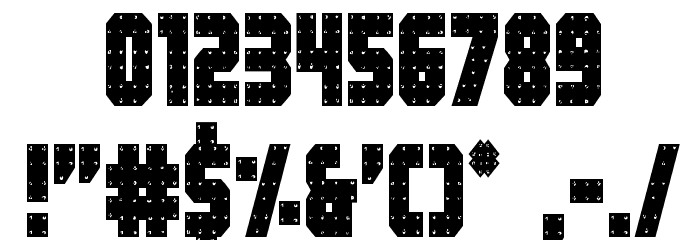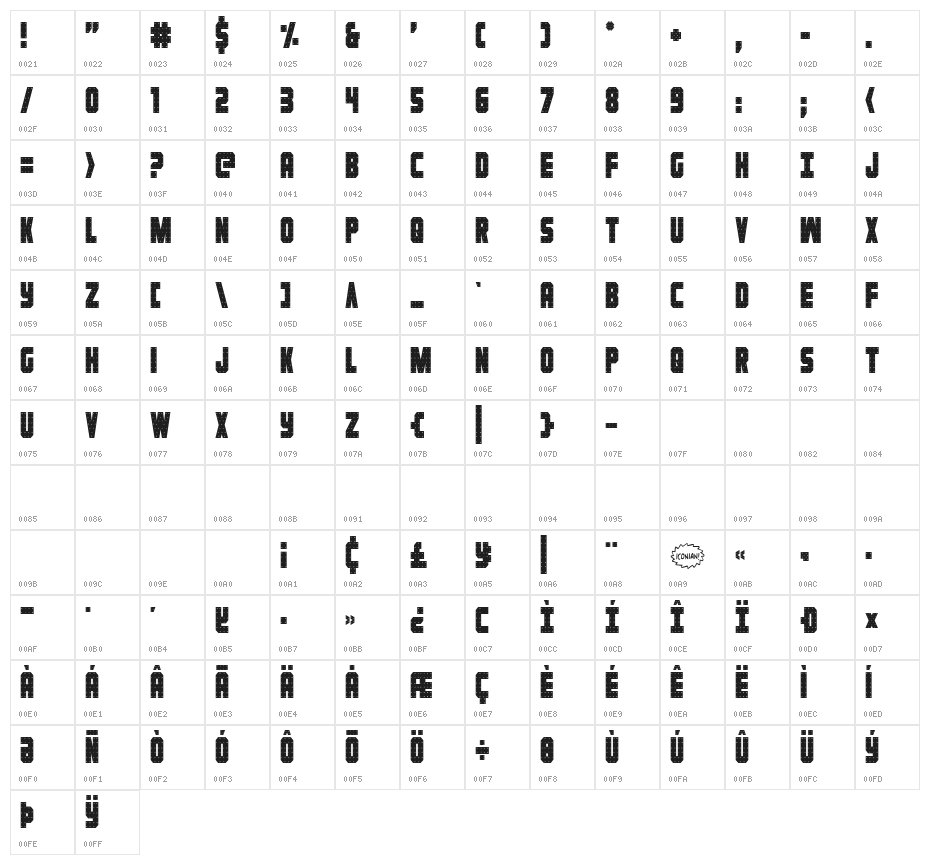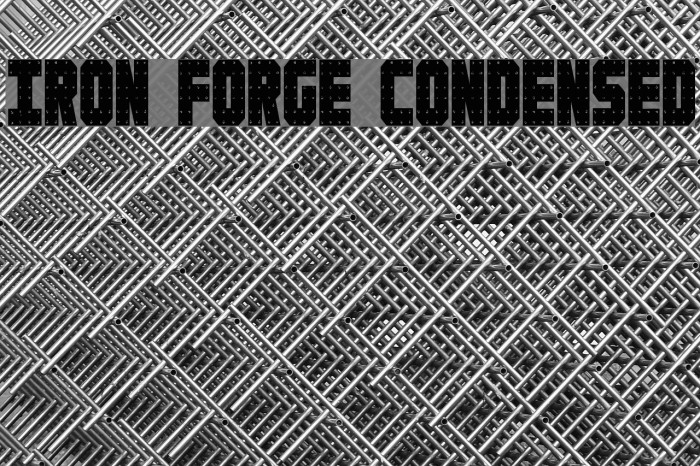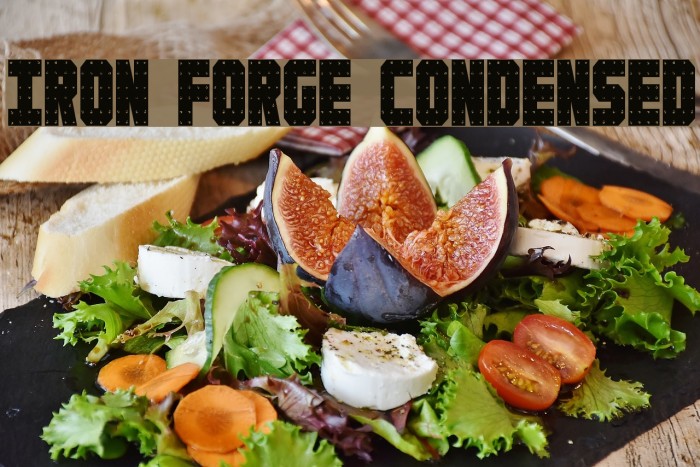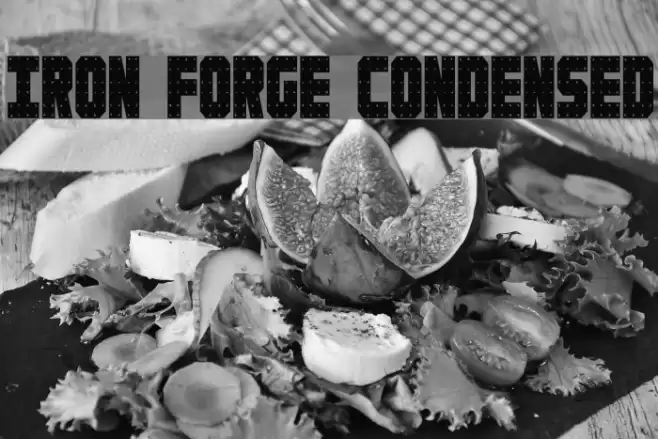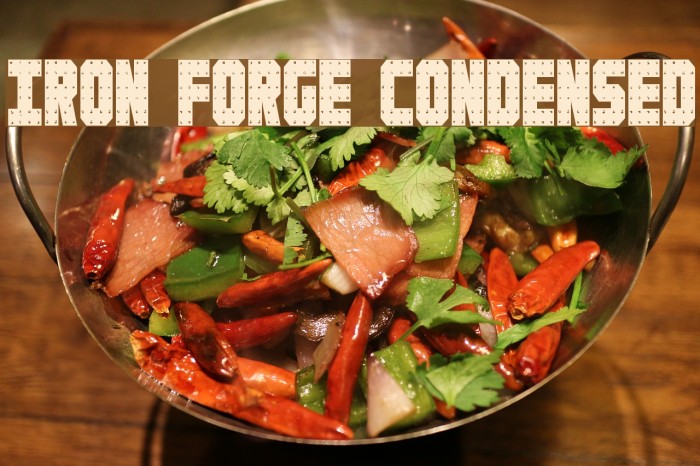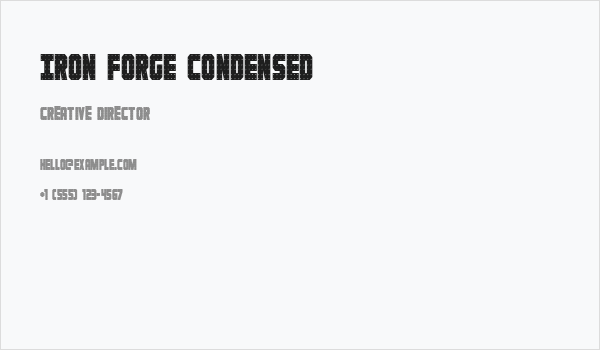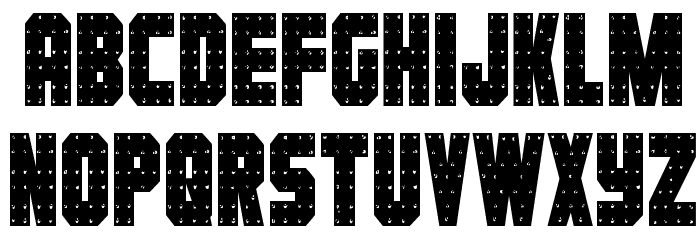
Iron Forge Condensed Font
Iron Forge Condensed Description
This font features a bold and industrial design, characterized by its blocky and robust letterforms. Each character is filled with a pattern of small, evenly spaced dots, giving it a unique, textured appearance reminiscent of riveted metal or perforated steel. The uppercase and lowercase letters maintain a consistent style, with sharp angles and a strong geometric structure. The numerals and special characters follow the same design principles, ensuring uniformity across all glyphs. This font's condensed width allows for efficient use of space, making it suitable for impactful headlines and titles.
| Overall Style | Industrial, Modern |
| Proposed Projects | Ideal for industrial-themed posters, branding for construction or manufacturing companies, and any project requiring a strong, mechanical aesthetic. |